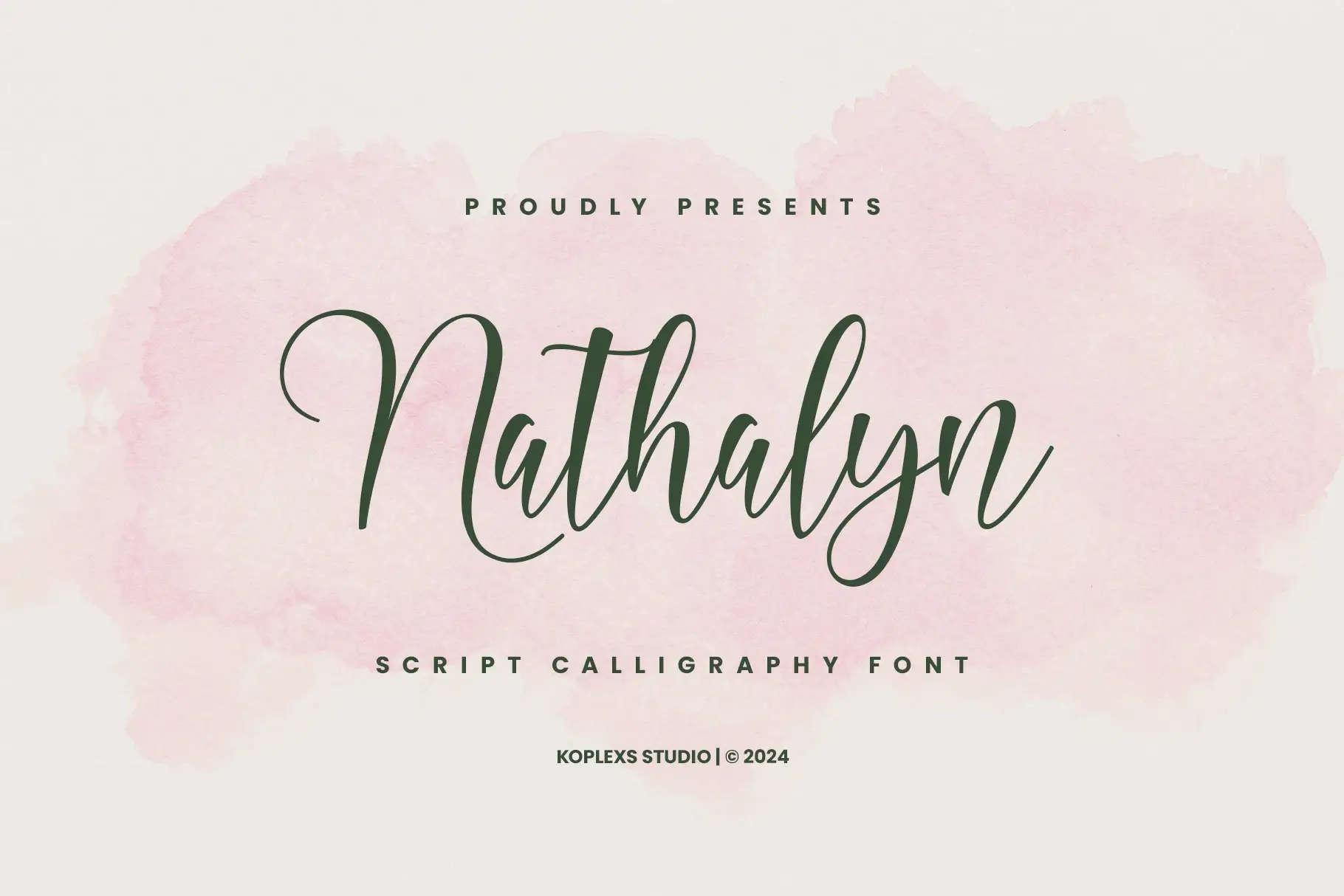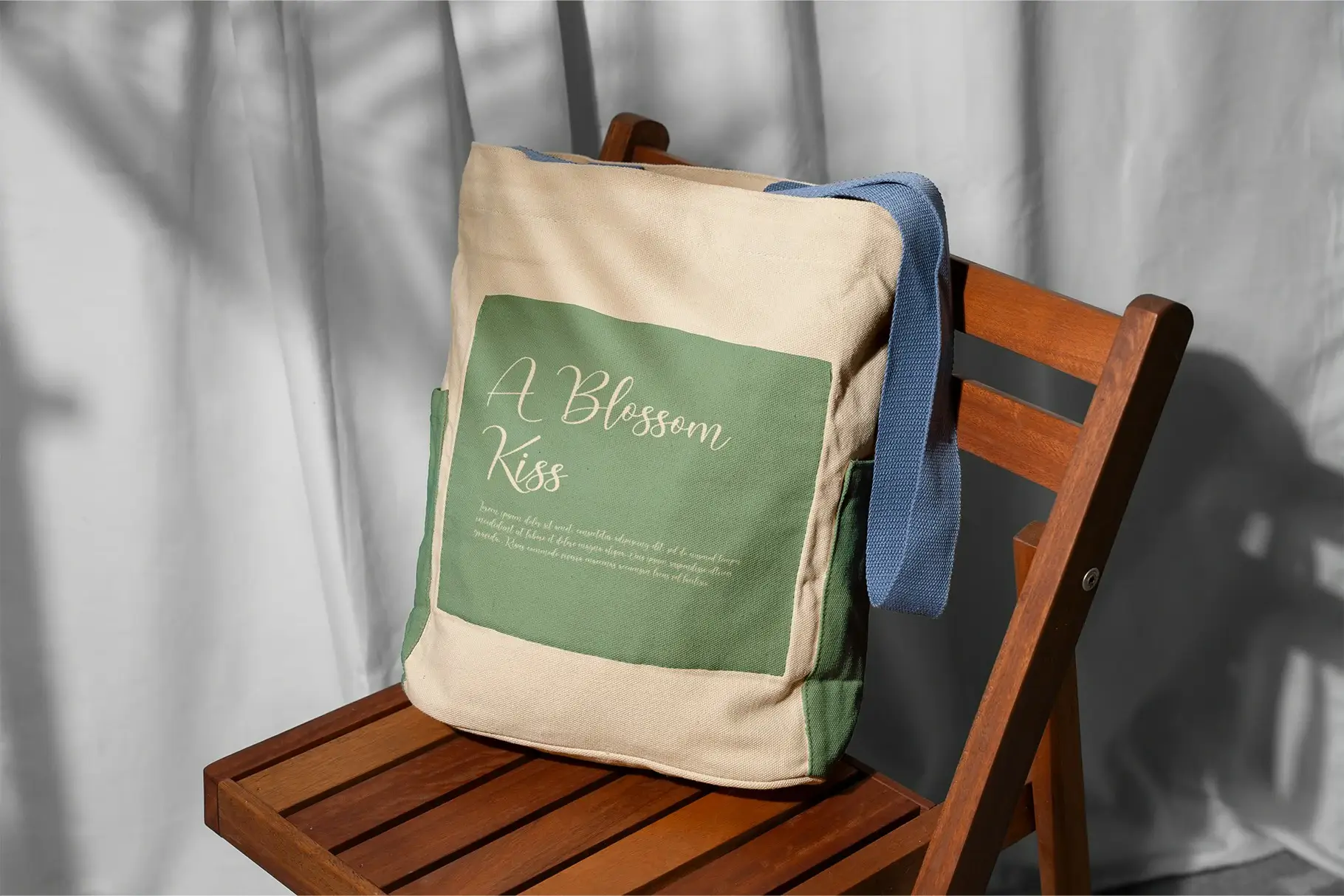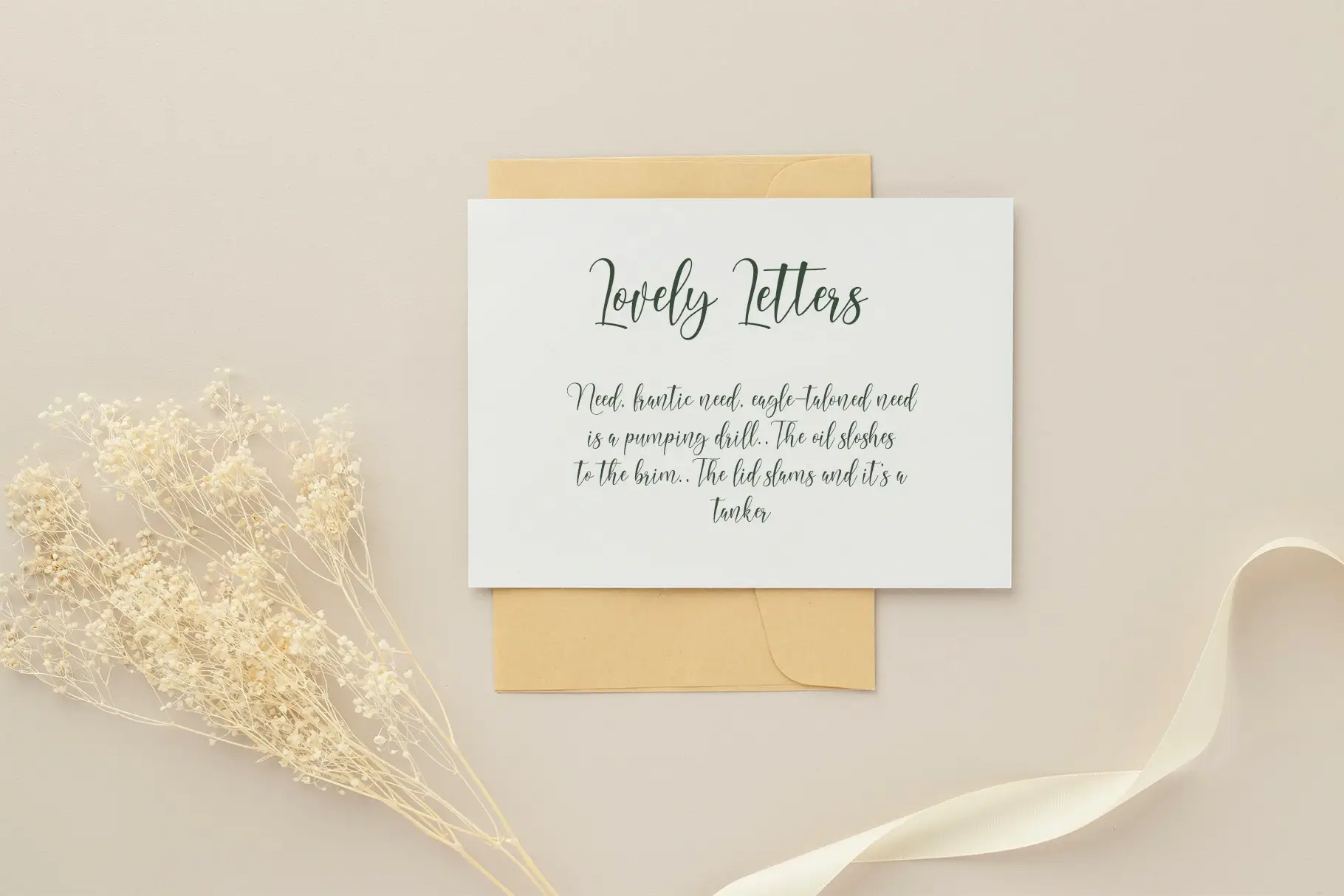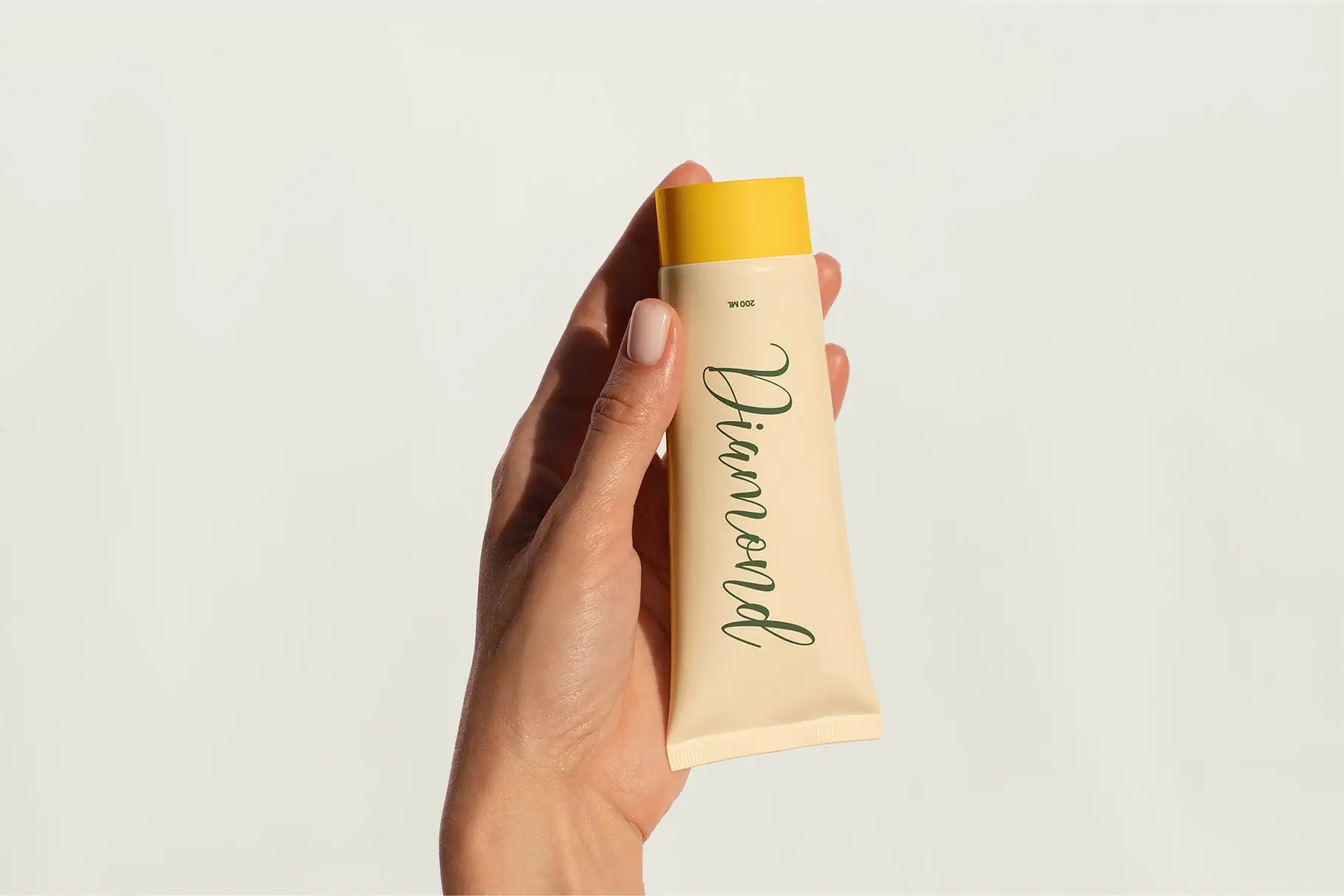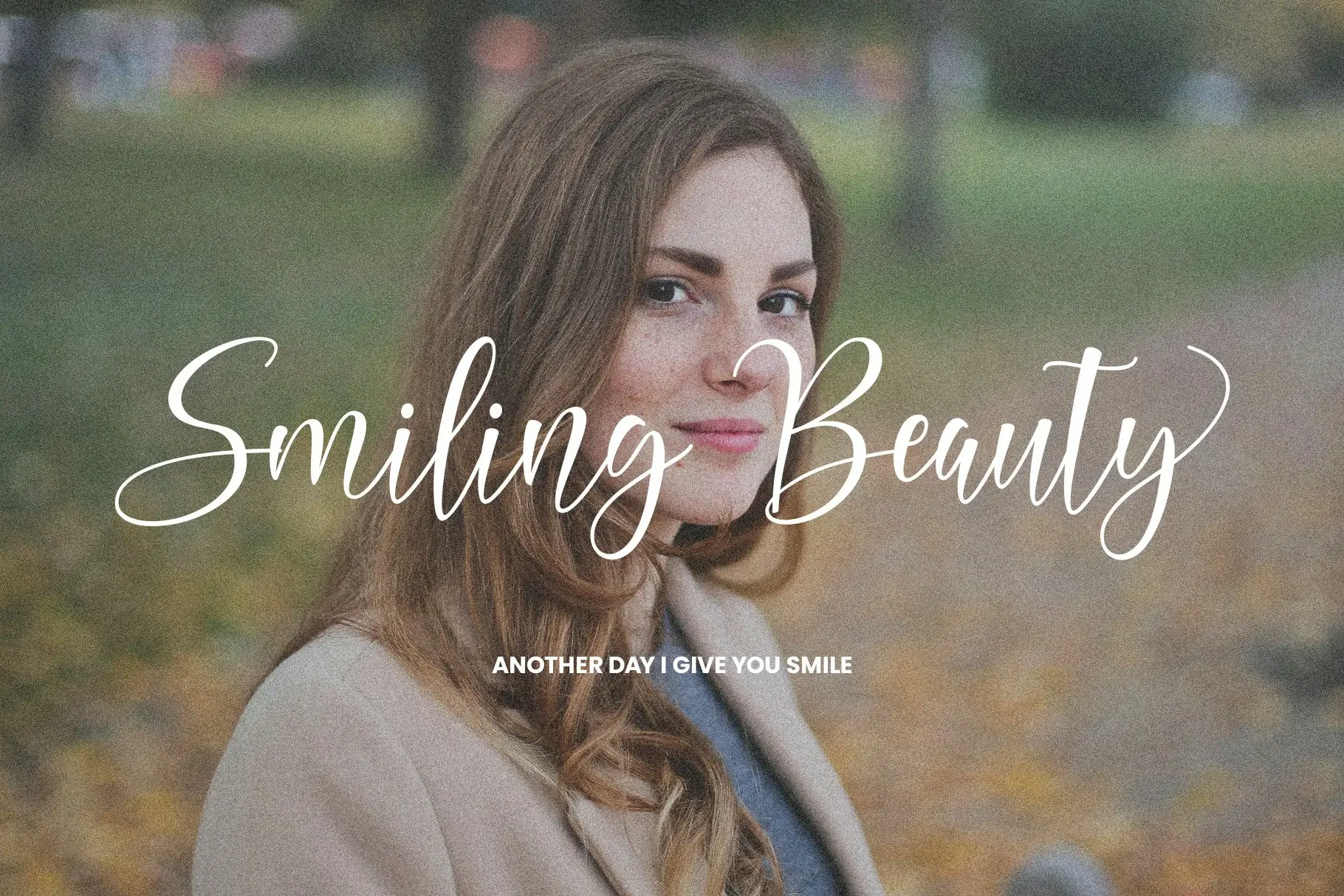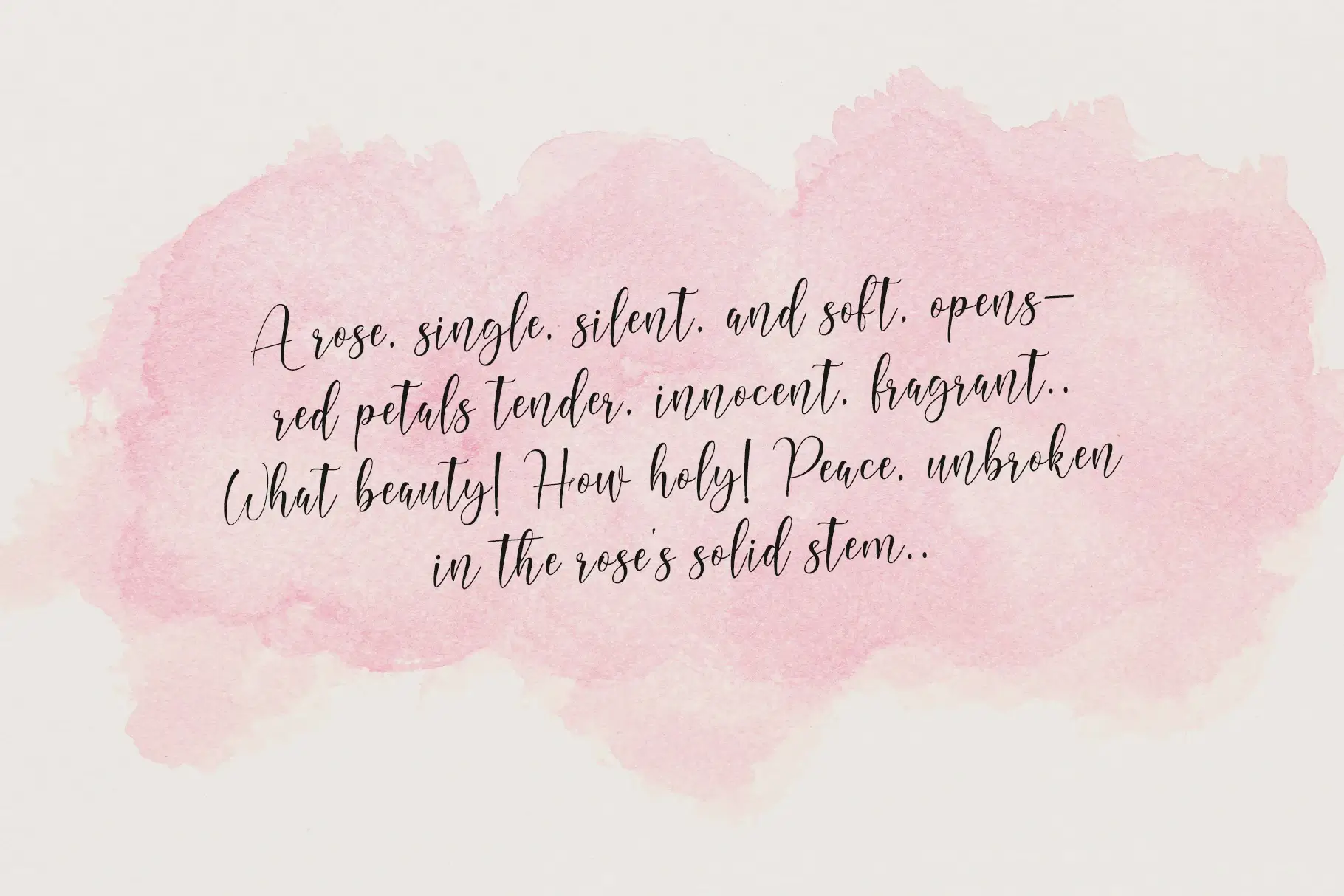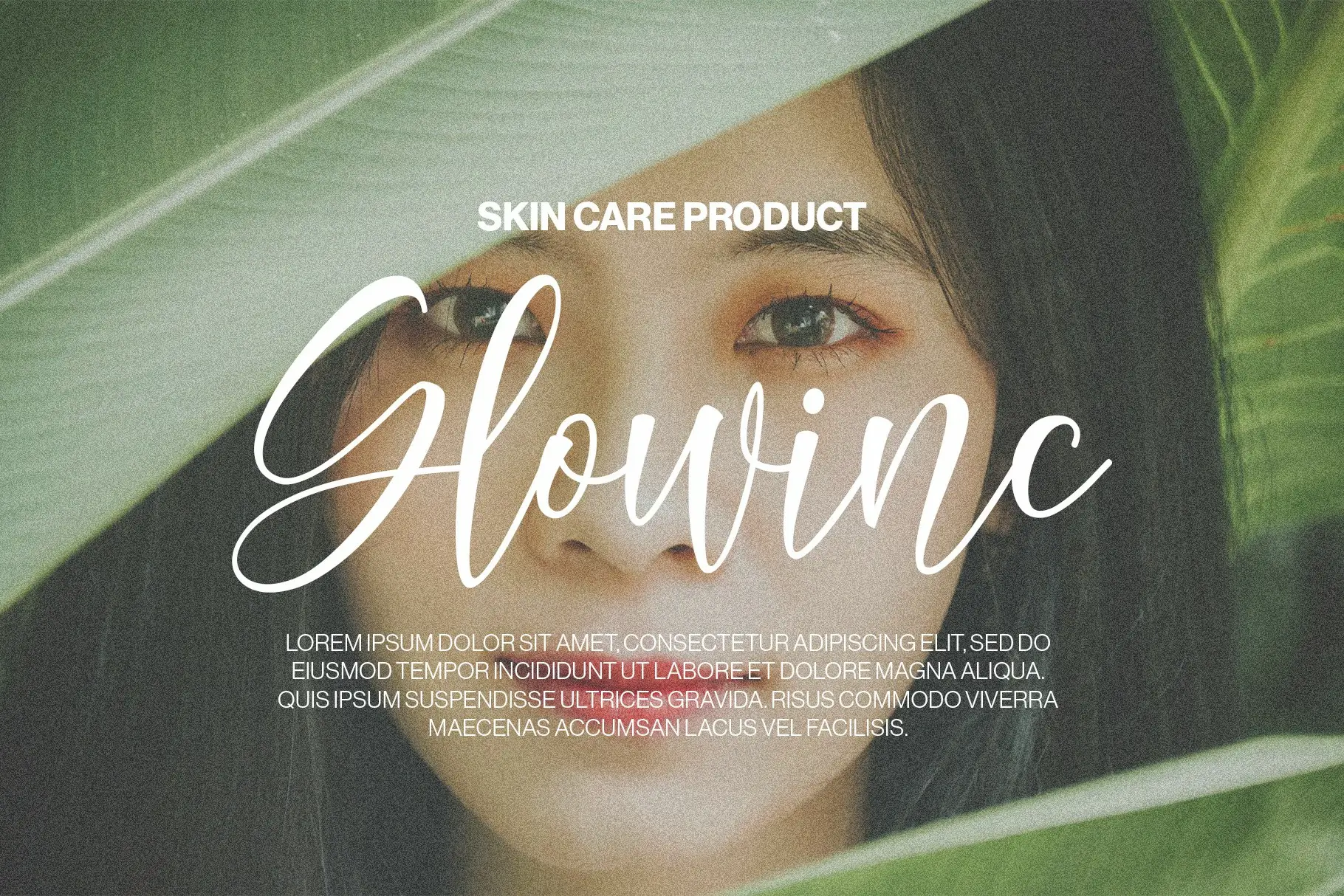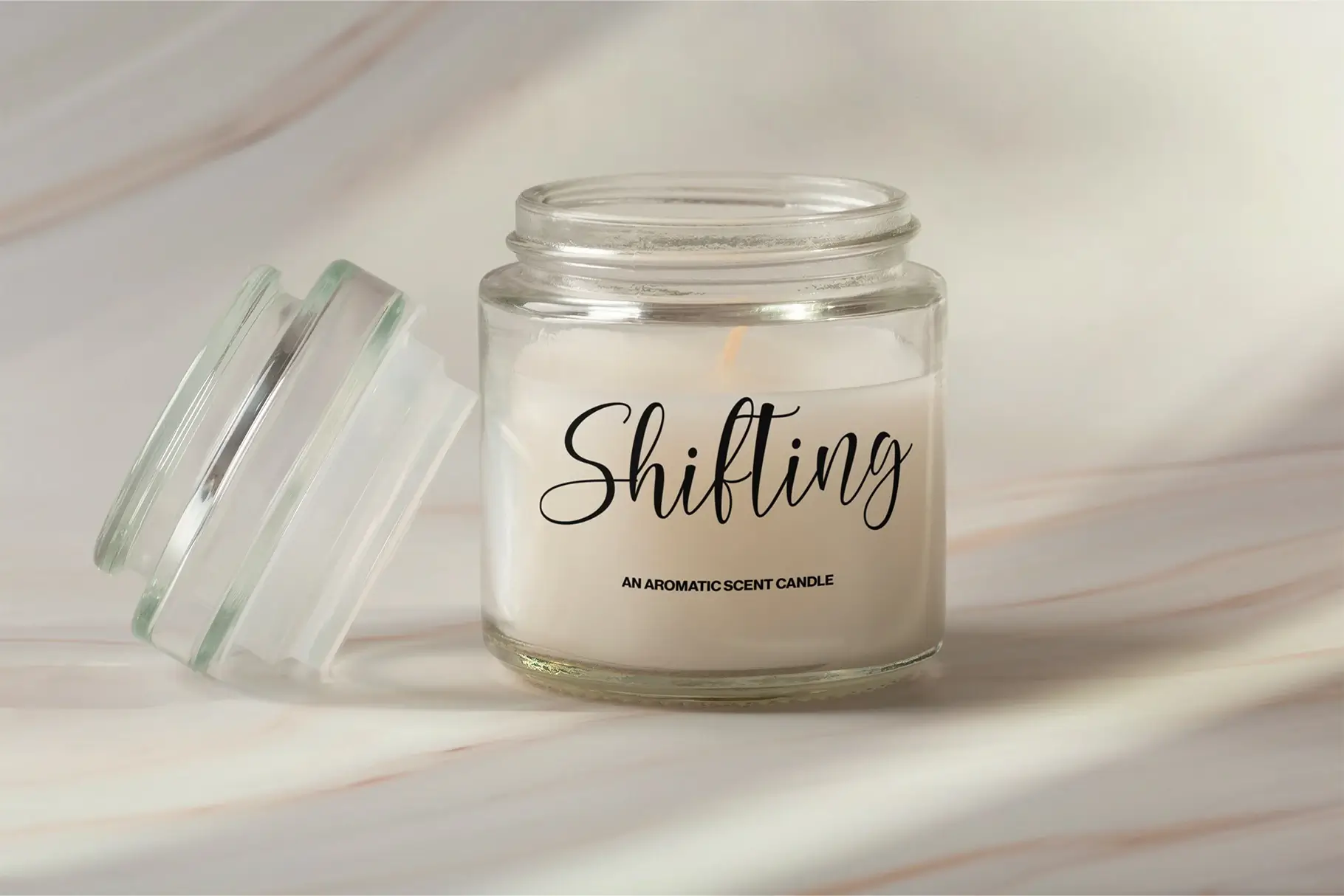
Nathalyn Font
Nathalyn Font – A Timeless Script Calligraphy Font for Elegant Designs
Unveil the charm of timeless elegance with Nathalyn Font, a beautiful script font that blends graceful curves with contemporary style. Designed by Koplexs Studio in 2024, Nathalyn is a stunning calligraphy font that speaks volumes through its romantic flow, perfect for elevating any creative project that seeks a touch of sophistication.
Whether you’re designing wedding invitations, logos, branding materials, or social media graphics, Nathalyn Font delivers an effortlessly luxurious aesthetic. With its fluid strokes and balanced contrasts, this cursive font captures the essence of handwritten beauty, making it a versatile choice for both professional designers and creative enthusiasts.
✦ Features That Set Nathalyn Font Apart
Nathalyn Font isn’t just another pretty typeface. It’s a carefully crafted calligraphy font with attention to every detail:
• Elegant Script Style: Inspired by traditional handwritten letters, Nathalyn’s script form flows smoothly across the page. Each glyph is drawn with precision, ensuring your designs look polished and professional.
• Stylistic Alternates & Ligatures: Nathalyn includes a variety of alternate characters and elegant ligatures that allow you to customize the look of your typography effortlessly. Create natural, handwritten effects with just a few clicks.
• Multilingual Support: This font supports a wide range of international characters, so your creativity knows no bounds—whether you’re designing in English, French, Spanish, or beyond.
• High Versatility: Nathalyn is a script font that transitions seamlessly from digital platforms to printed materials. It works wonderfully for high-end branding, editorial layouts, packaging design, wedding stationery, quotes, and more.
Perfect for a Range of Design Projects
The versatility of Nathalyn Font makes it suitable for a variety of creative applications:
• Wedding Invitations & Event Cards: Add a romantic and timeless feel to your special day with the elegant flourishes of Nathalyn.
• Logos & Branding: Give your brand a bespoke look with this refined cursive font. Ideal for beauty, fashion, or artisanal product brands.
• Social Media & Quotes: Create eye-catching Instagram posts, Pinterest graphics, or heartfelt quote cards that captivate and inspire.
• Packaging & Labels: Whether it’s a candle, skincare line, or handmade gift, Nathalyn elevates your product’s presentation with classic charm.
Why Choose Nathalyn Font ?
In a world full of fonts, Nathalyn stands out for its grace, legibility, and emotional expression. Unlike many decorative script fonts, Nathalyn strikes the perfect balance between beauty and usability. Each character is optimized for clarity while retaining an organic, handwritten feel. This makes it not only a calligraphy font you’ll love aesthetically, but also one that’s functional and adaptable across multiple formats.
• Full Uppercase & Lowercase Set
• Numerals & Punctuation
• Stylistic Alternates
• Ligatures
• Multilingual Support
• PUA Encoded
If you’re searching for the perfect script font, calligraphy font, or cursive font for your next design project, Nathalyn Font is a must-have in your toolkit. It offers the artistic quality of hand lettering combined with the technical polish required for modern use.
Whether you’re creating a romantic vibe or an upscale brand identity, Nathalyn adapts to your style and amplifies your message with elegance and finesse.
Let your creativity flow with the timeless sophistication of Nathalyn Font. Embrace the beauty of script, the art of calligraphy, and the warmth of handwritten text—all in one exceptional typeface.